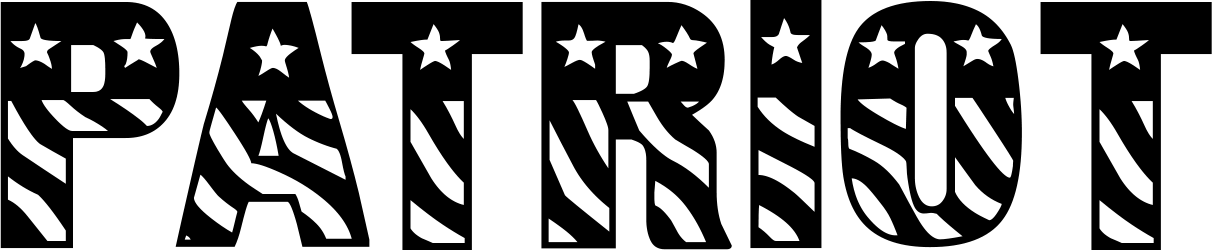
Patriot Font
In Patriot font, strips and stars represent the American flag. This 4th July font is the best opportunity for designers interested in designing flyers in large sizes and holiday themes with fireworks on Independence Day.…
In Patriot font, strips and stars represent the American flag. This 4th July font is the best opportunity for designers interested in designing flyers in large sizes and holiday themes with fireworks on Independence Day. If were you, we would not waste our time designing epic flag artwork. Also, gather all your thoughts to use the large characters and numbers of this patriotic font on Labor Day.